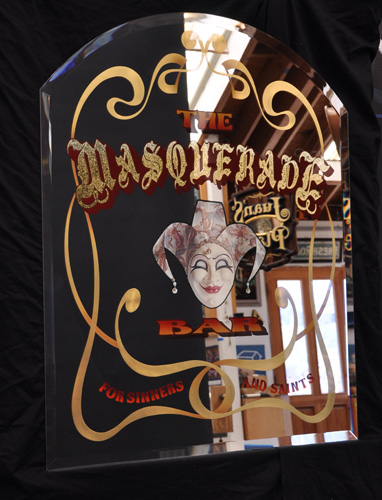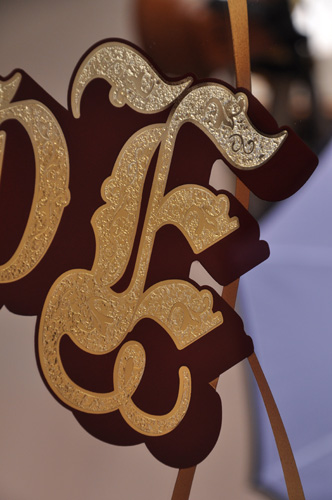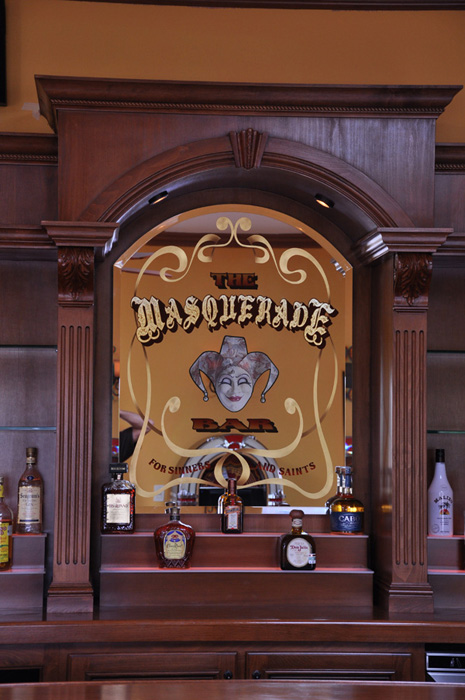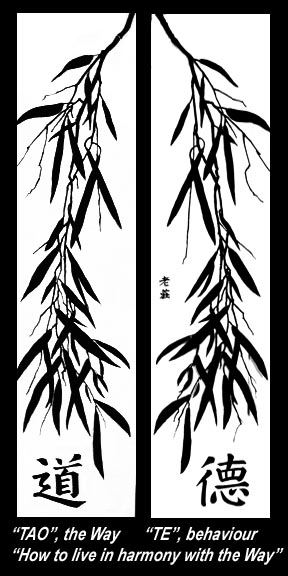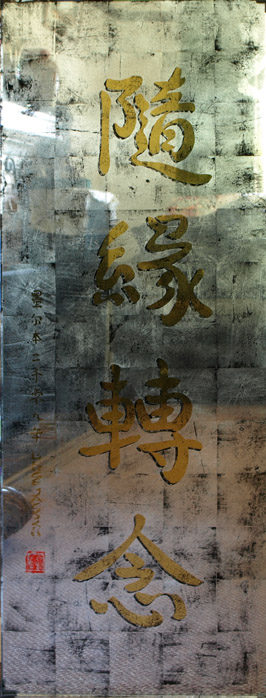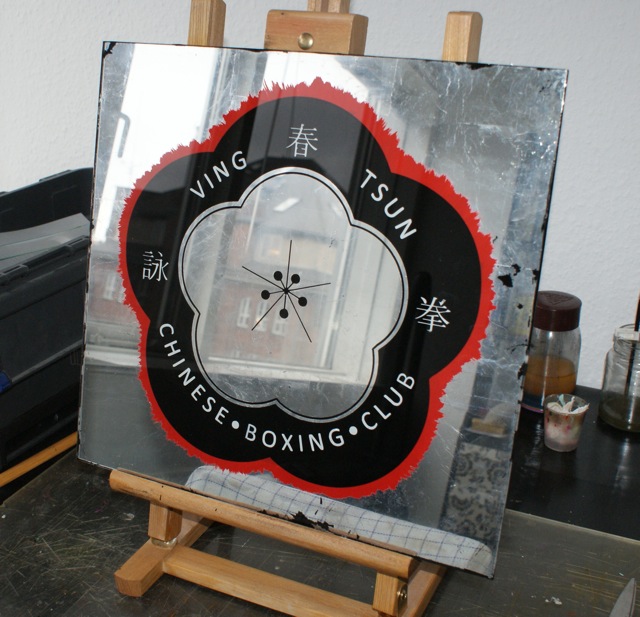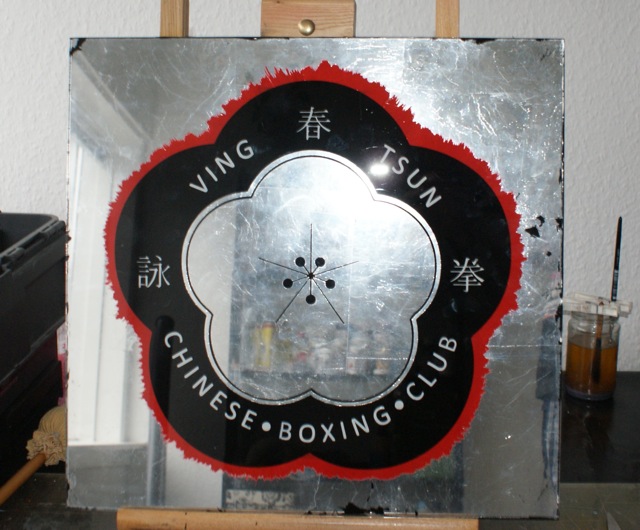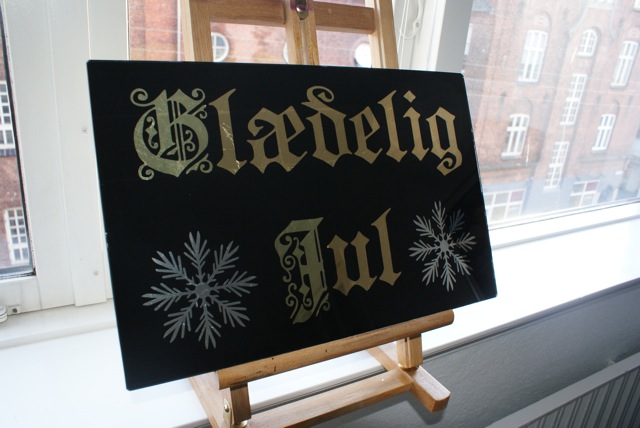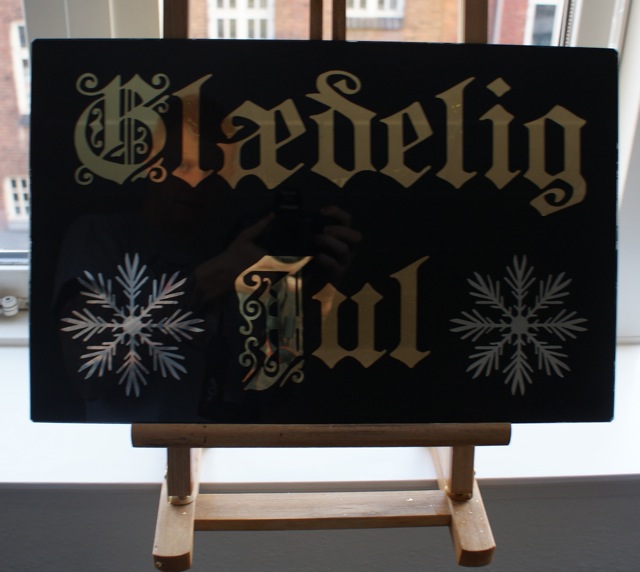
Glass Signs (Showcase your work here!)
That is some nice sharp detailed work Rod.
Those jewels really look nice on the panel.
Looks great! The two dancers, are they painted directly on the glass or how do you do that? I need to learn that techniqe
Just finished up on this one. Back to the unemployement line for awhile.
Hey, you're gettin' pretty good at those!
Very nice! Is this one that is executed on a stock mirror, or did you mirror it yourself?
Anytime someone want a new mirror look with lots of open clean mirroring I use stock mirror. That way I know it's going to be as perfect as it can be.
Nice job rod! You sandblasted The silvering out the areas to be gilded etc.? Do you use anchor resist?
If you use a new mirror and want to oil gild simply mask and sandblast. Doesn't really matter what mask you use. Normally I use a spray mask for that.
Great to see this again, has it been that long ago?DAVE SMITH wrote:2000 letterheads Stockport. Blue lead Mirror silvering and angel gilding,23crt gold.
Which brand of black paint is best for painting a design (including Chinese calligraphy) on window glass? The finished piece (14" by 56") will be indoors, protected under glass.
I normally use one shot with hardner.
Here is the mirror installed in the clients bar.
Lots to look at here, so I'll add a recent piece of work too. It's not a sign, but the techniques are the same.
This is a mirror for a Japanese restaurant. The woman is done in a variety of different colors of gold leaf, borrowing a composition and some design elements from Gustav Klimt. The woman face, vaguely disturbing and alien, is derived from a Japanese theatre mask. Airbrushing was done first, then the all the gilding.
And a close up after airbrush work was finished, with a piece of card behind it just so you can see it more clearly.
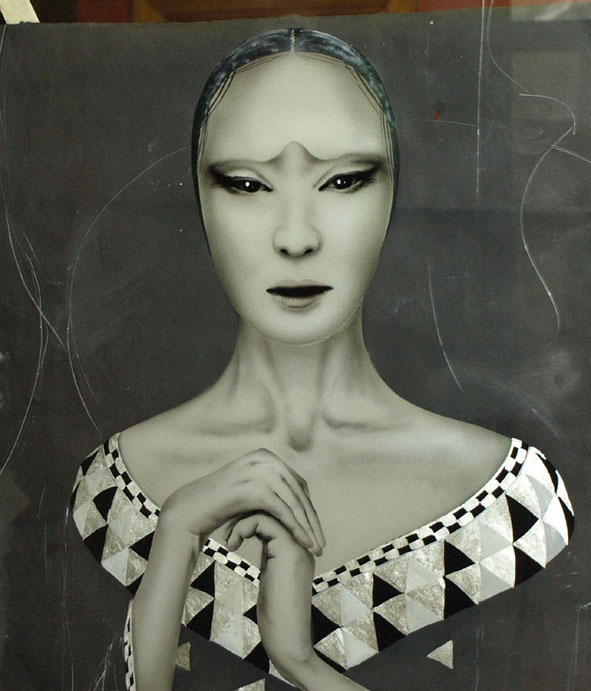
That is one of the most amazing pieces I've scene you do ! I'd really like to see more detail photo if possible.
This is it!!!!!!!
This is what I see in my dreams.
I painted these two panels on clear glass in One-Shot
Please tell me if theres any bad ideas so I can correct next time.
By the way. It means Merry christmas, its danish and maybe its a little early for these